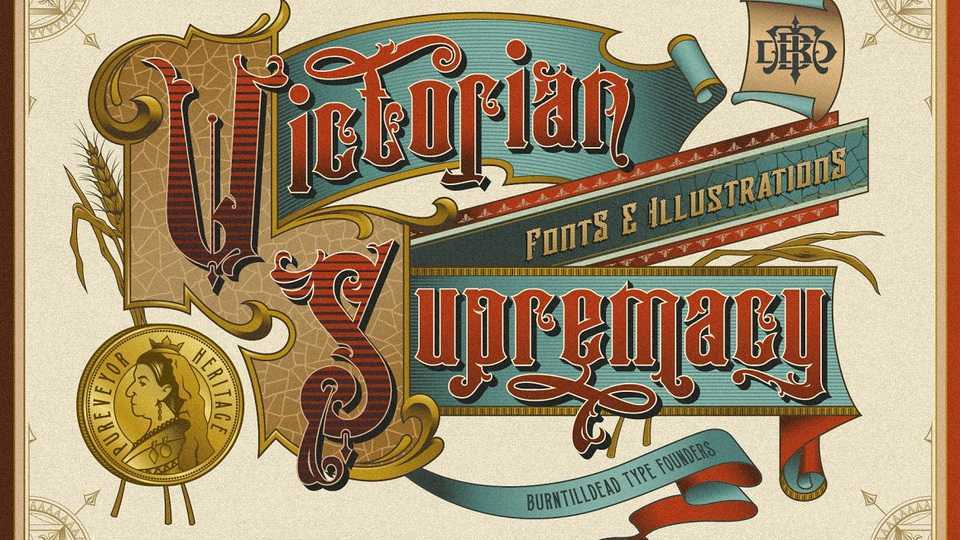
Download Victorian Supremacy font, an ornamental typeface inspired by letterheads from the late 1800’s and early 1900’s. Victorian Supremacy is strong and stately, yet elegant and decorous to add a unique flair to your next design project.
Designer: Burntilldead